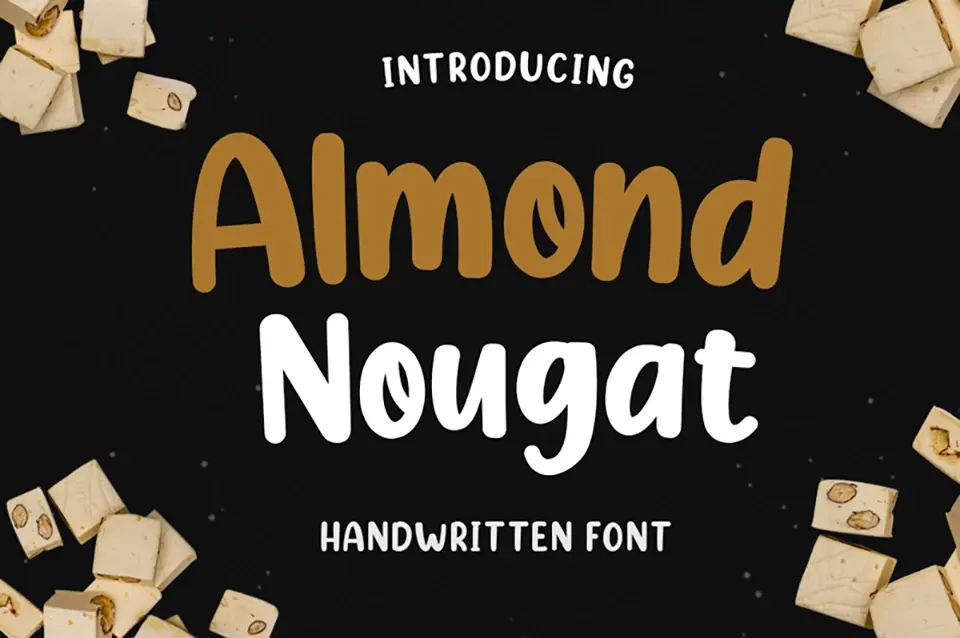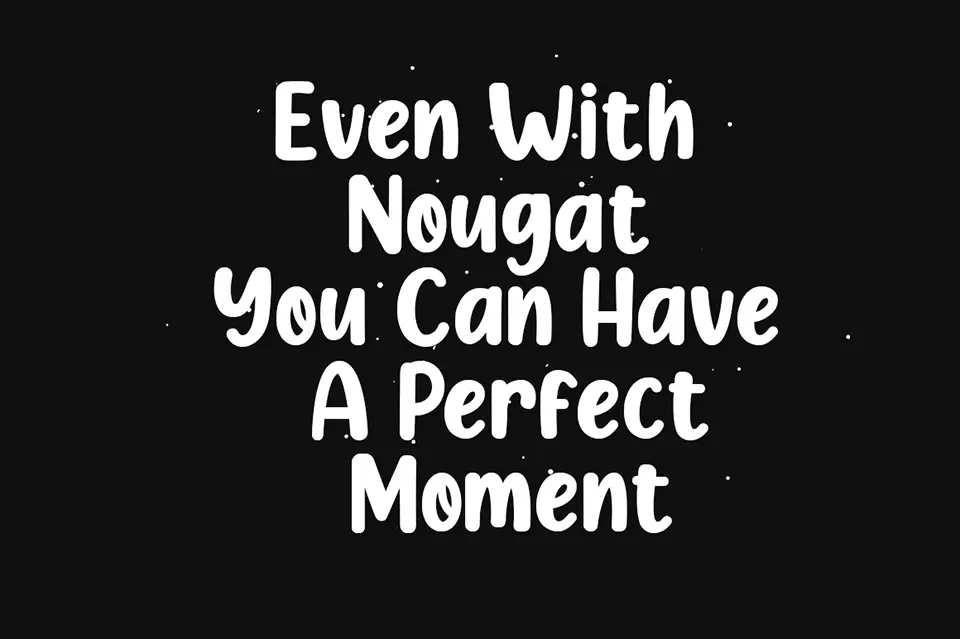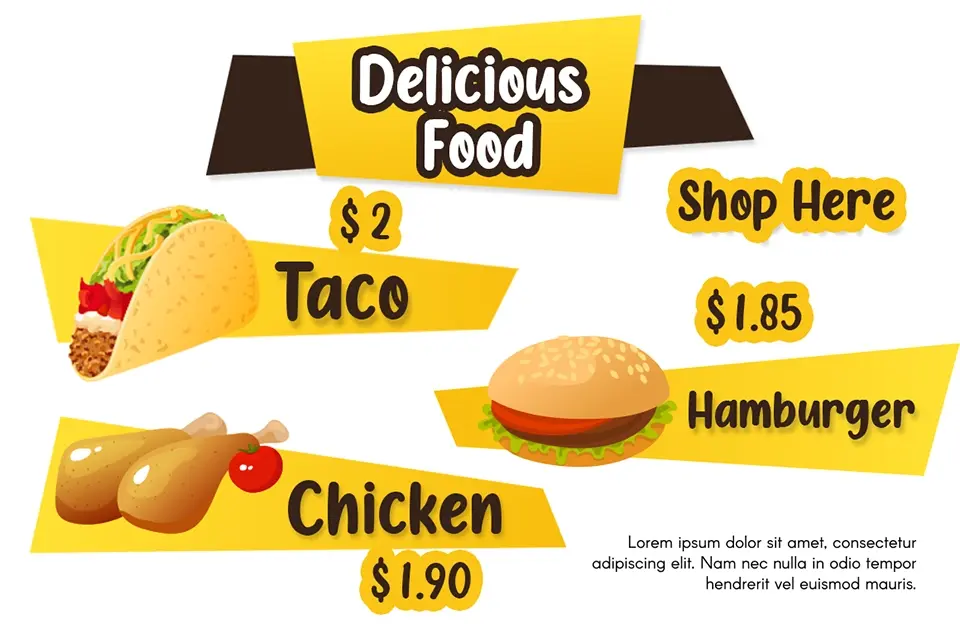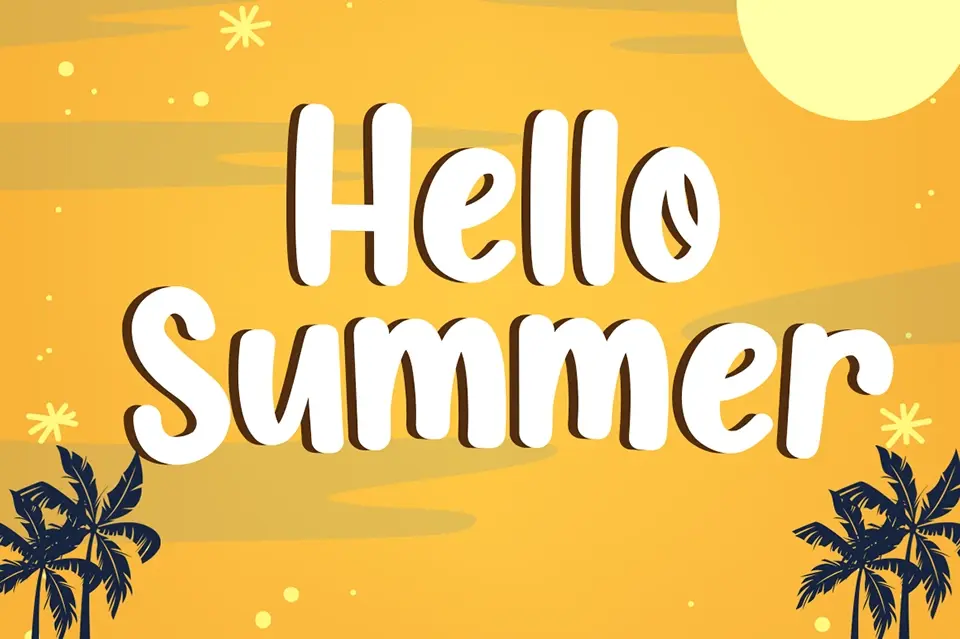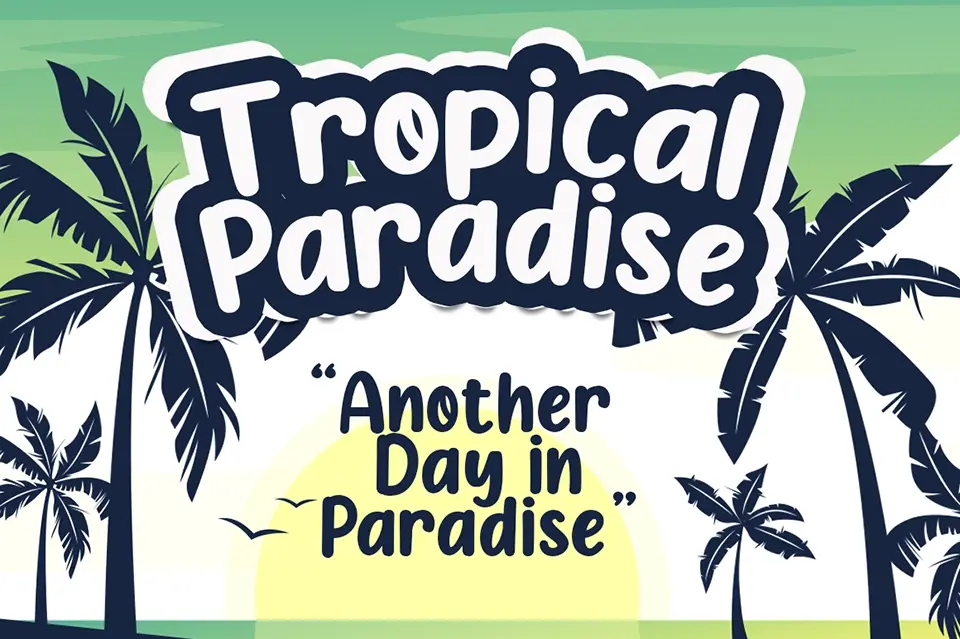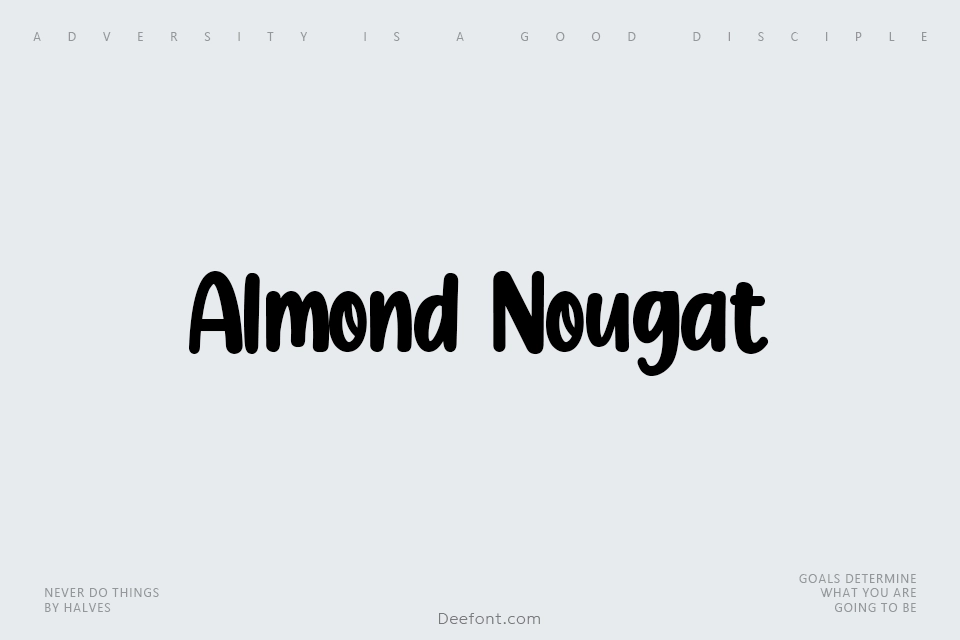
Almond Nougat Font
Almond Nougat is a playful and bold handwritten font featuring rounded edges and a whimsical style perfect for creative projects. Designed with thick, uniform characters and friendly curves, this typeface brings joy and personality to any design. Ideal for children’s books, playful branding, eye-catching headlines, and invitations, Almond Nougat delivers a cute and engaging appearance that makes content stand out while maintaining excellent legibility. The font combines charming aesthetics with practical functionality for diverse design applications.